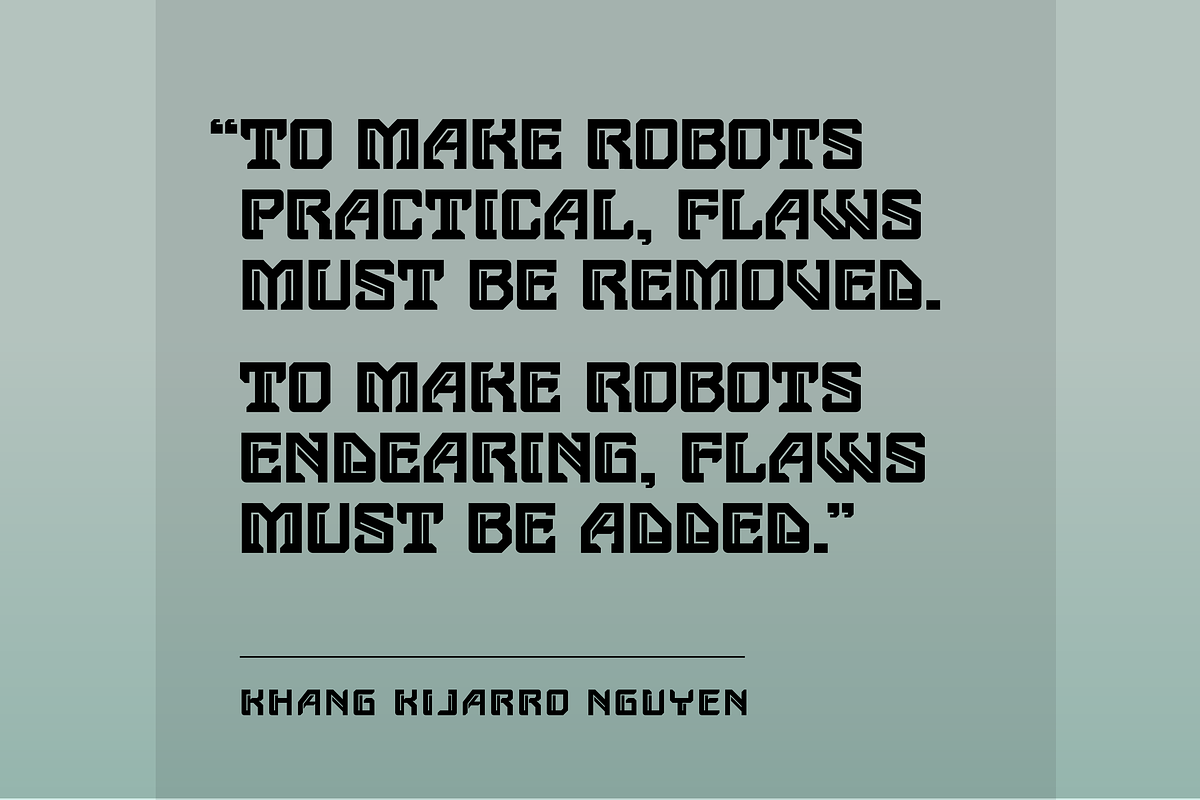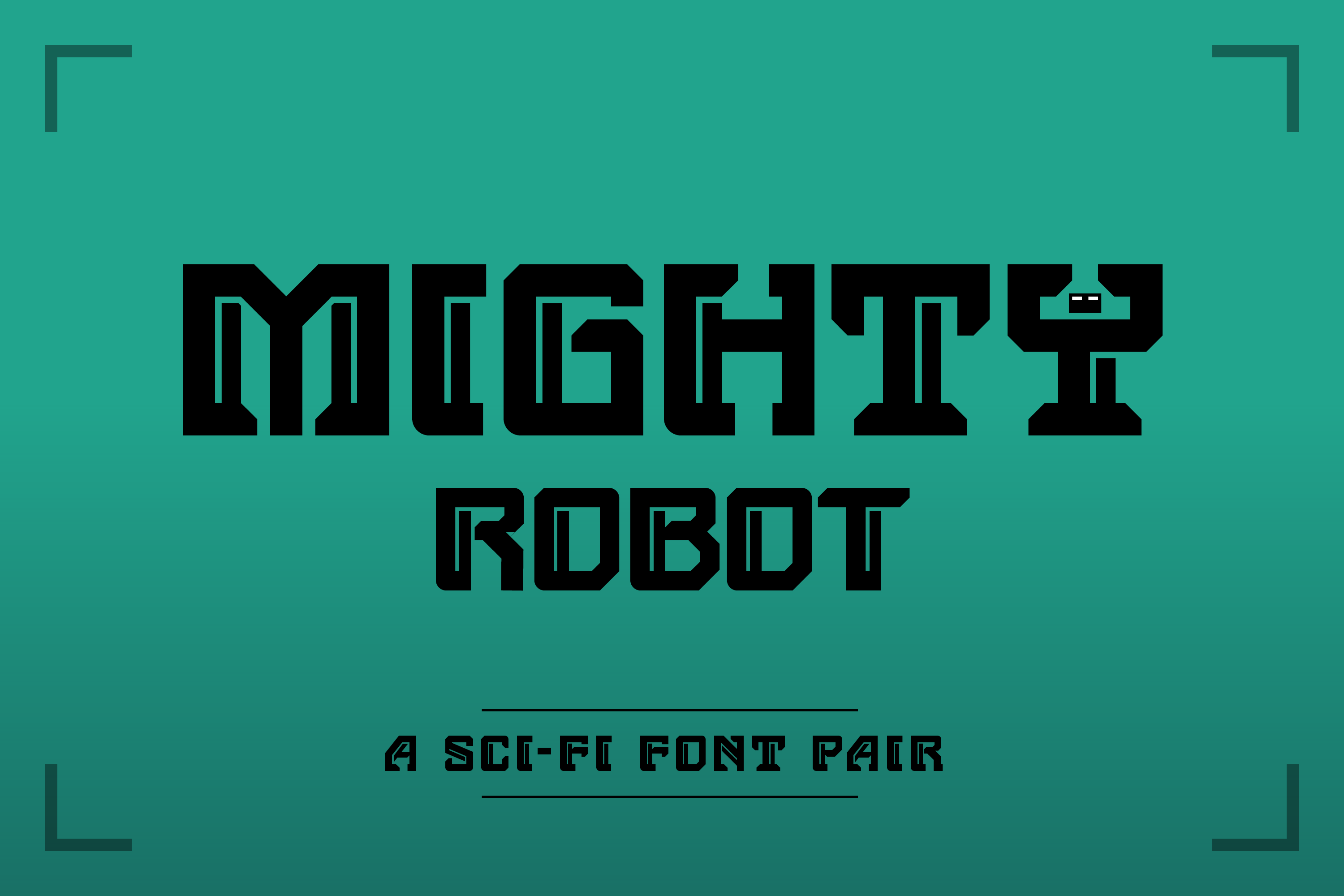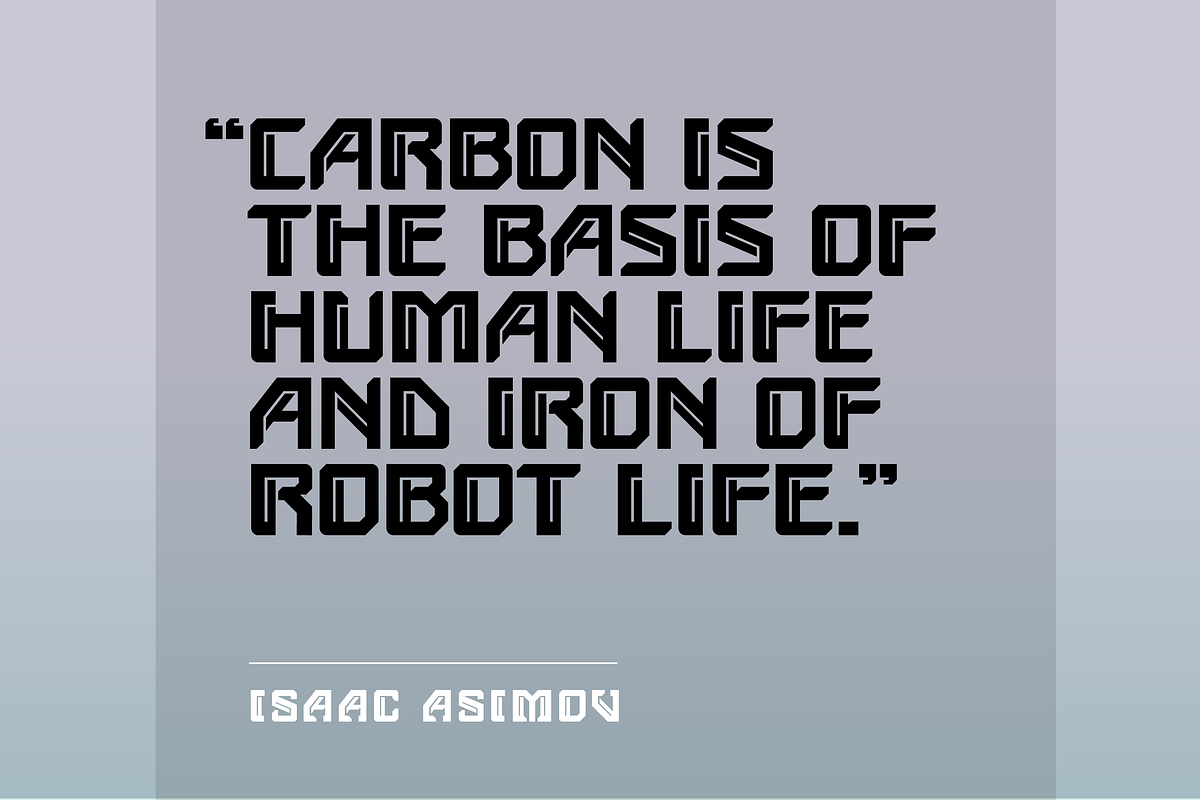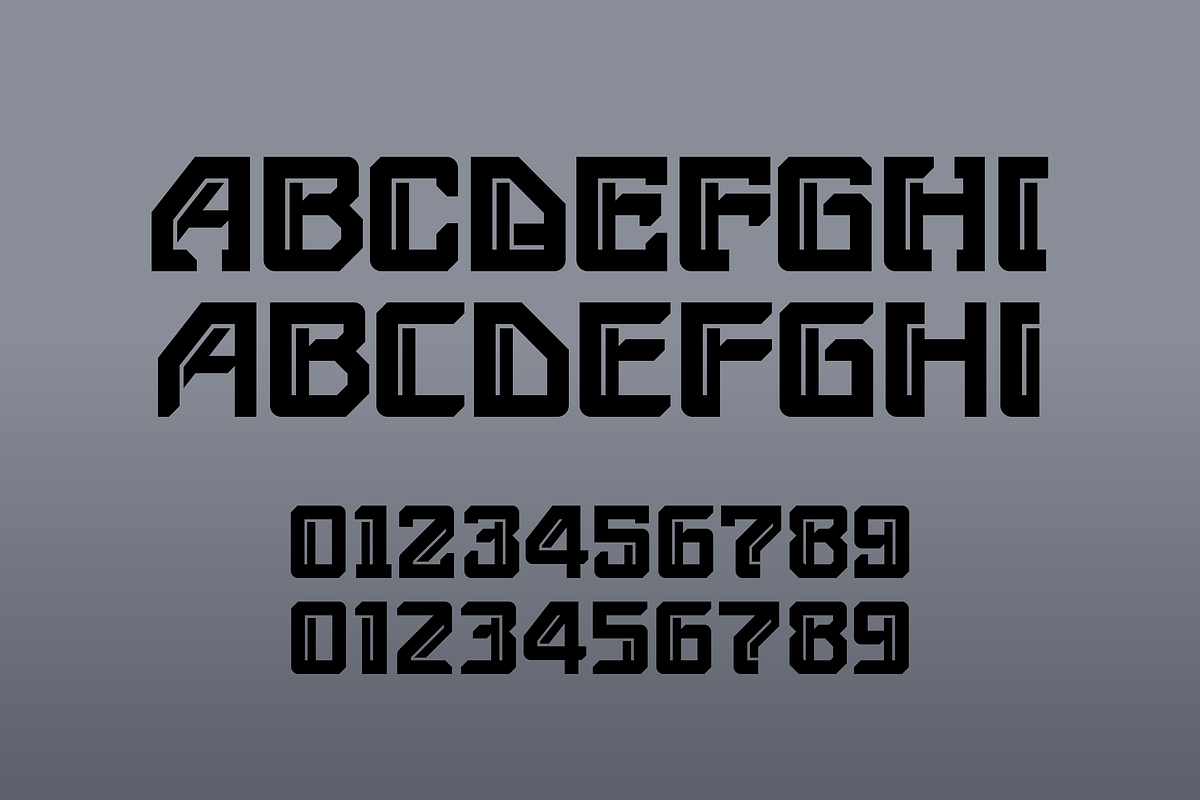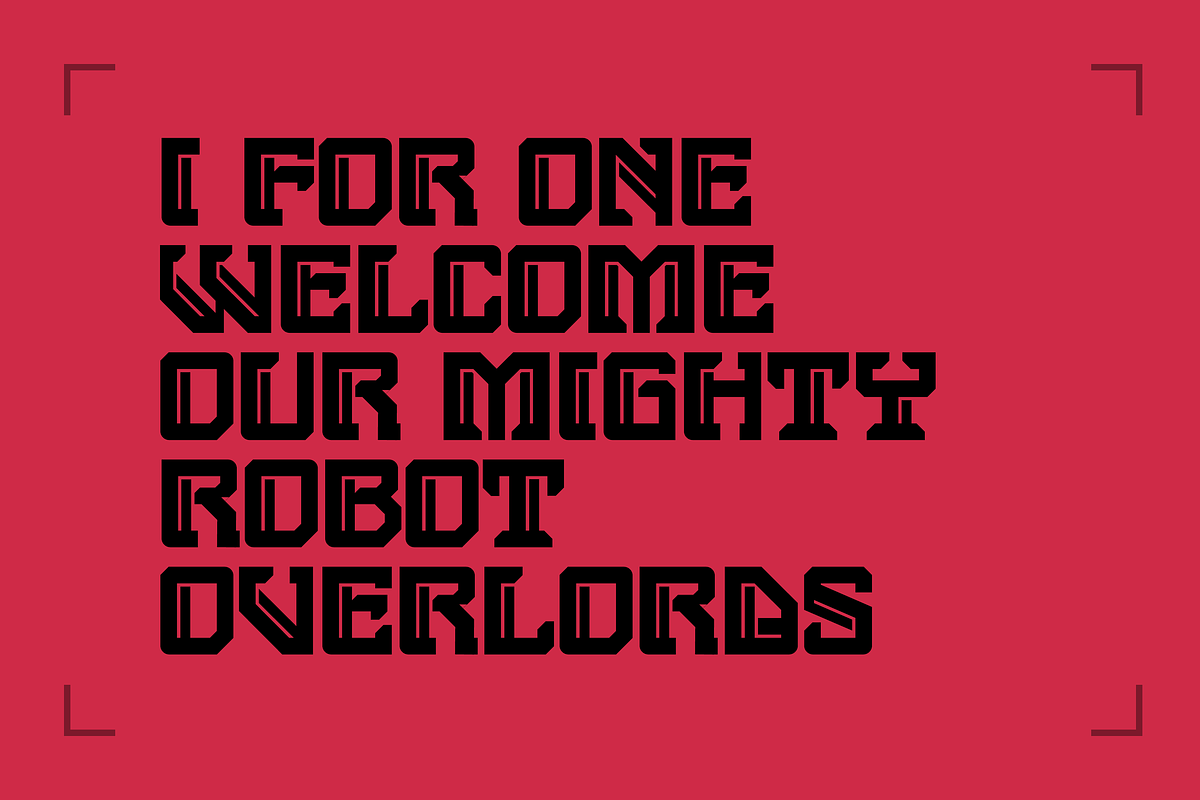
Mighty Robot - sci-fi font pair
A robotic display font that's ready to take over the world.
- 2 Fonts: Regular and Sans versions.
- Each font contains between 240+ glyphs including accented characters and punctuation.
- Support for 88 languages.